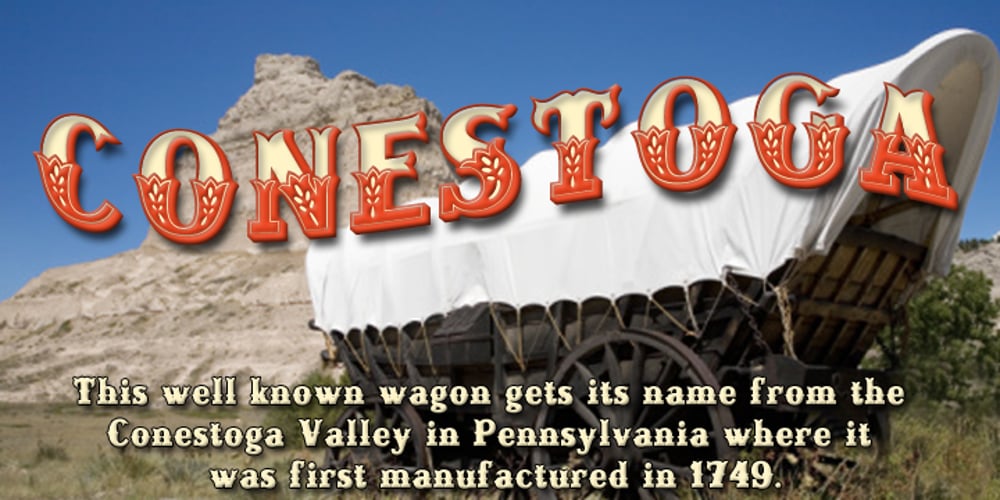
Conestoga Font Family was designed by Michael Hagemann and published by FontMesa. Conestoga contains 2 styles and family package options. Conestoga was a challenge that I took on which was to take a logo from an old antique vegetable crate label and create a complete font based on its design. The original logo was curved on a path and was caps only. The new letters were drawn straight and a matching lowercase was created to turn this old custom logo into a working font.